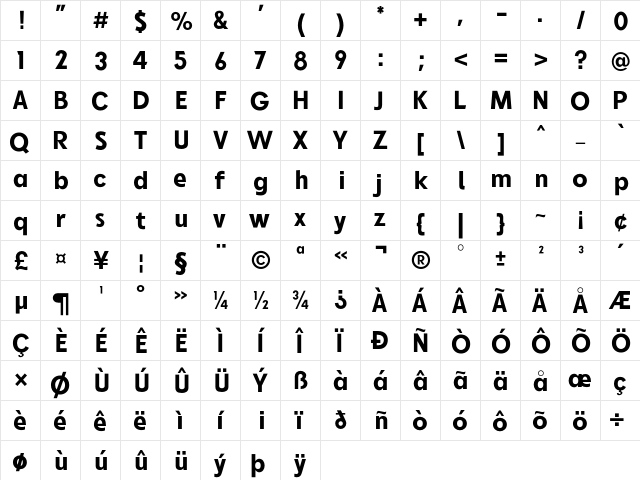
Dream Attack Grotesk Regular
Design Context for Dream Attack Grotesk Typeface
Dream Attack Grotesk takes a clean, functional approach — its unadorned letterforms prioritise legibility and work reliably across screen and print environments.
Font Pairing: Works well alongside a characterful serif or display font that can carry the expressive load while Dream Attack Grotesk handles the functional copy.
Pro Tip: Pair Dream Attack Grotesk with a display or serif font for headlines — its neutral character makes it an excellent supporting player in complex typographic systems.